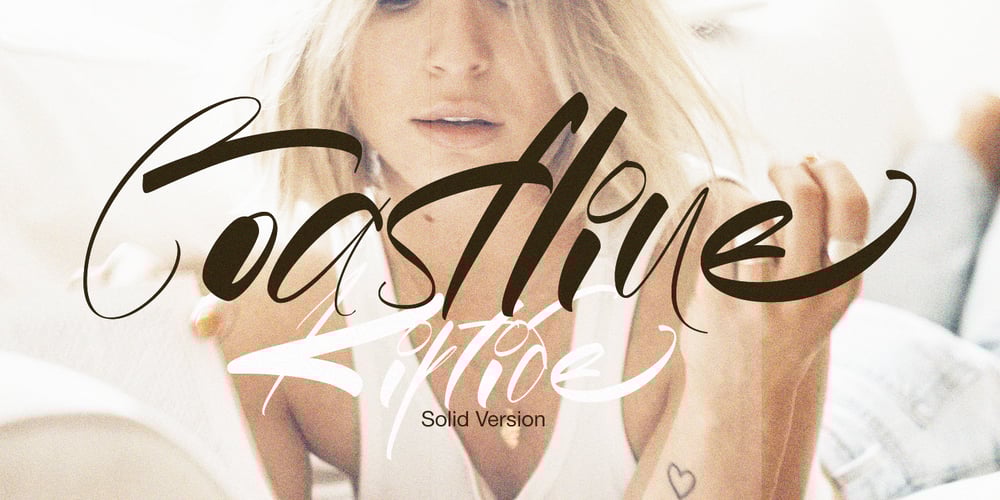
Coastline
Coastline font
Coastline Font Family was designed by Sukjana Almunandar and published by Alcode. Coastline contains 1 styles and family package options. Coastline is a solid version of kiptide. Coastline comes with a set of upper and lowercase letters, numbers, alternative styles for some lowercase characters are also available, which makes your text and designs more attractive.